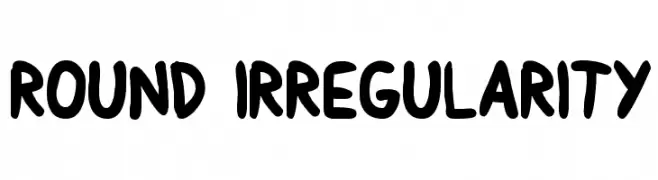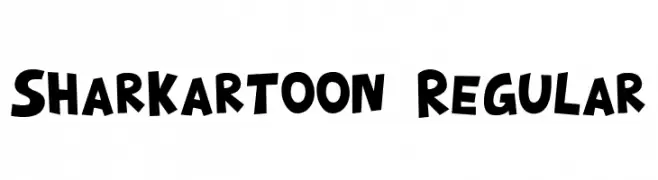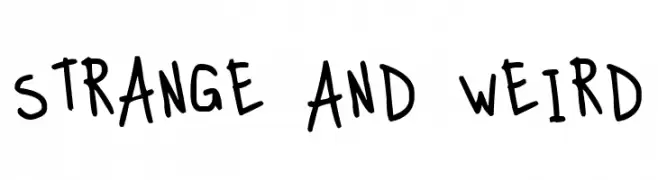
A bold, graffiti-inspired font with a playful and dynamic style.
A playful, handwritten font with a casual and dynamic style.
A playful, bold font with a hand-drawn, energetic style.
A bold, dynamic font with sharp, angular edges and a playful, cartoonish style.
A bold, playful font with a cartoonish and informal style.
A playful, rounded font with irregular, bold characters.
A modern, geometric font with clean lines and uniform stroke width.
A modern, geometric font with clean lines and a bold appearance.
A bold, cartoonish font with playful and exaggerated curves.
A playful, handwritten font with a quirky style.